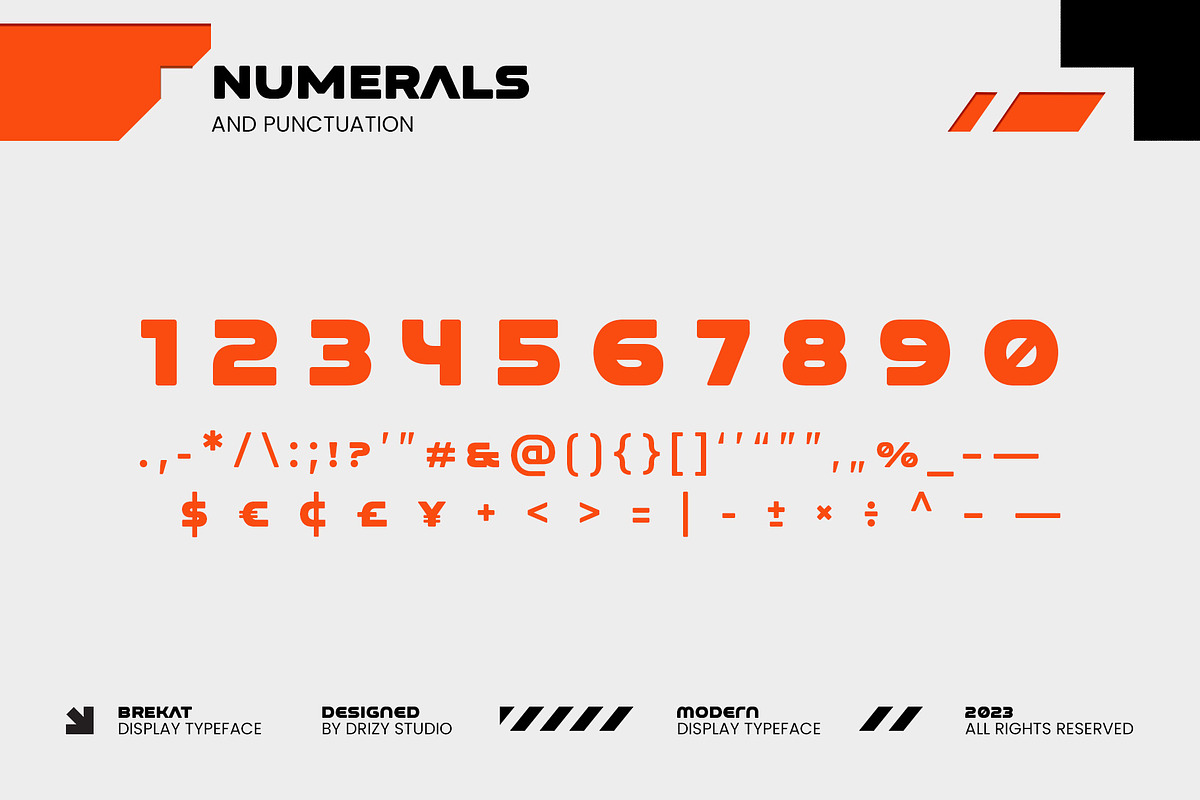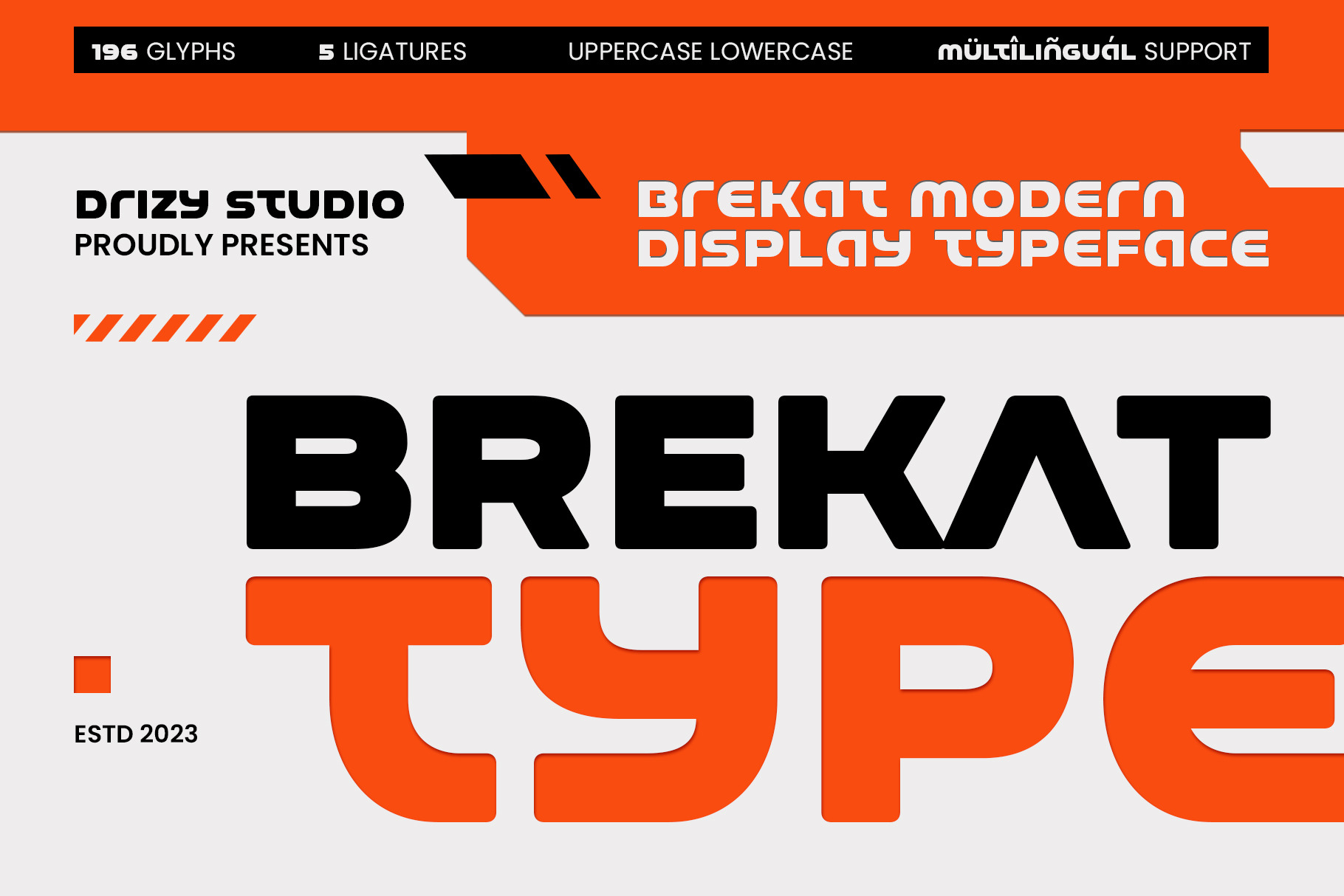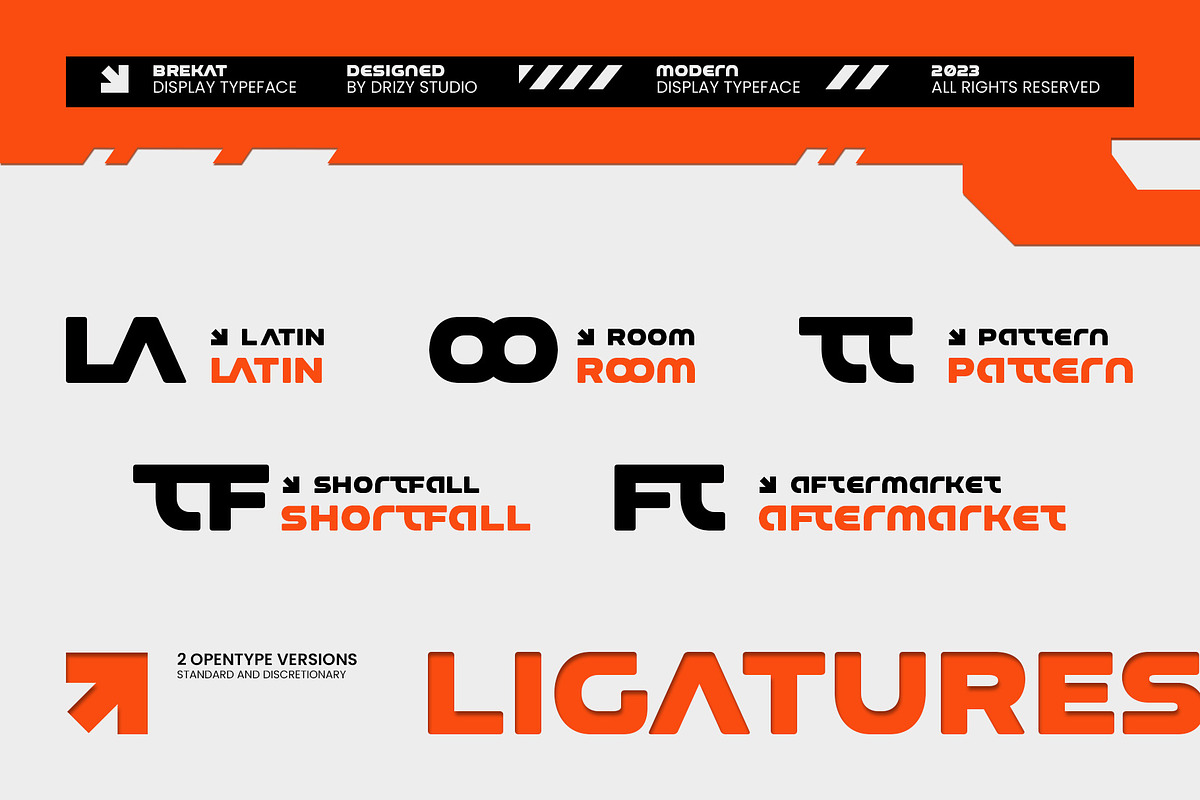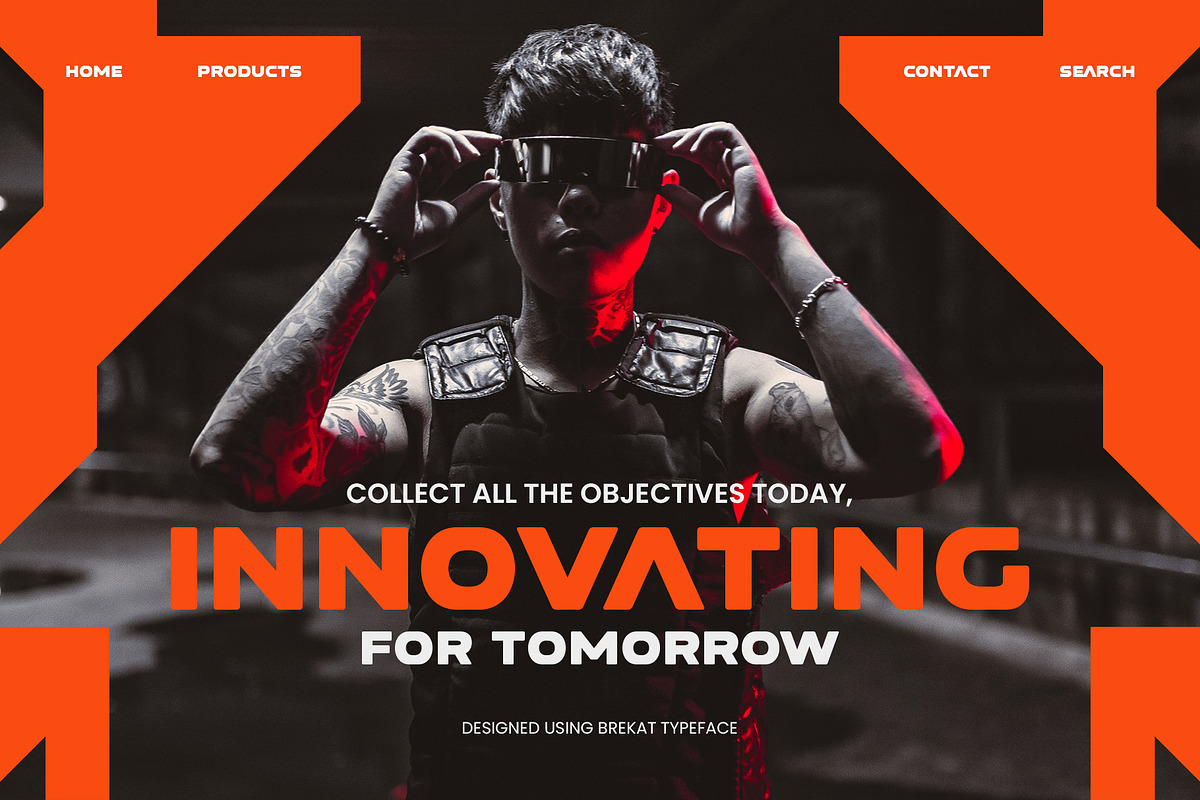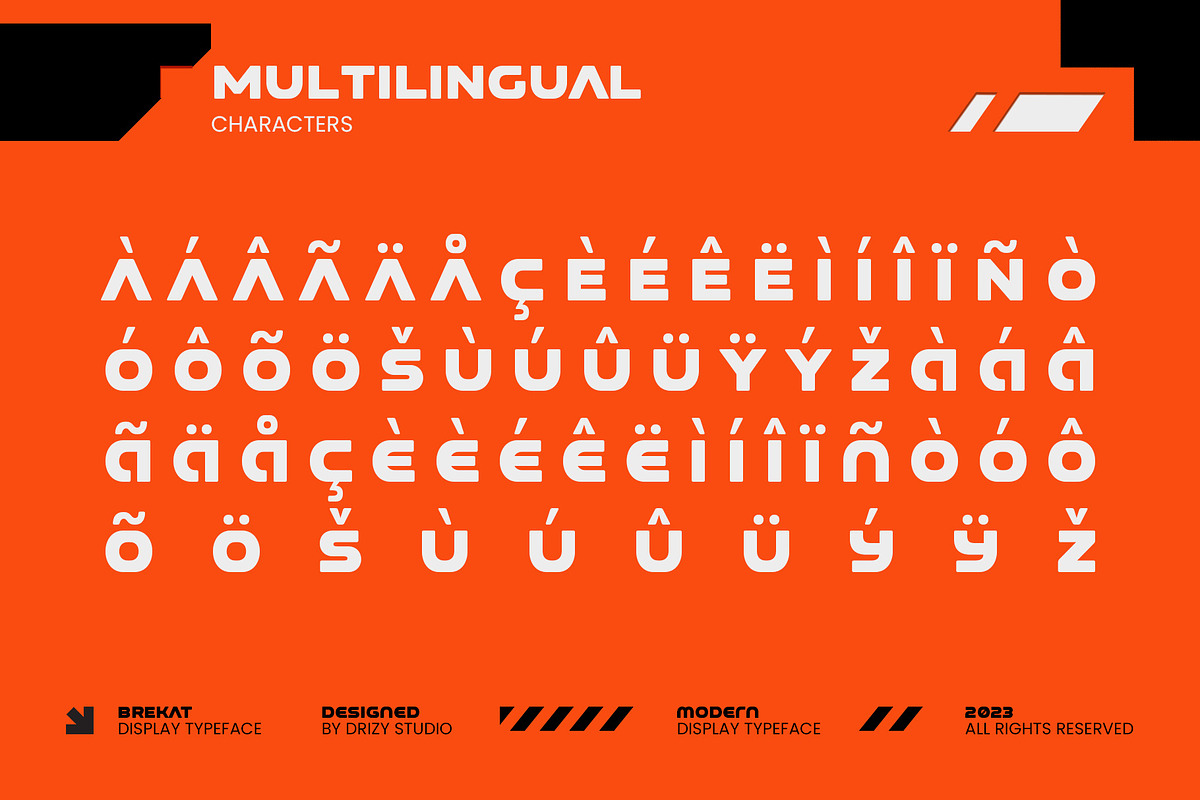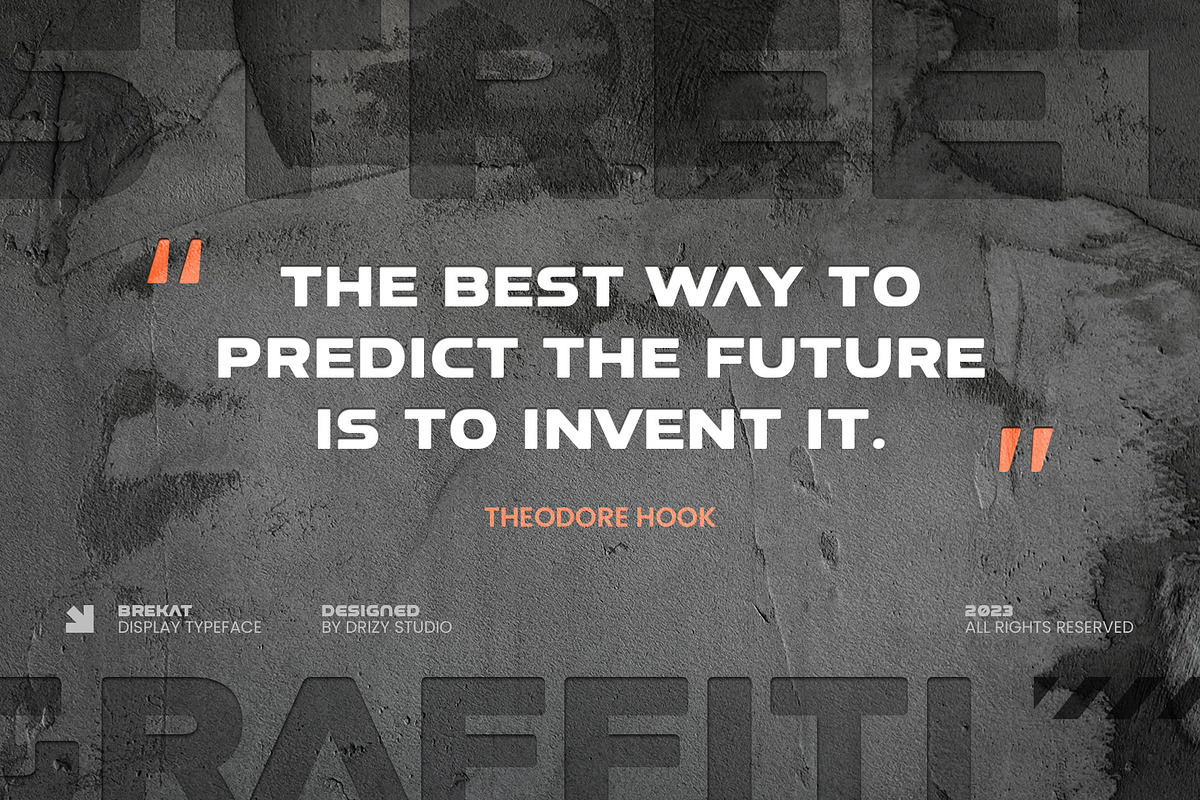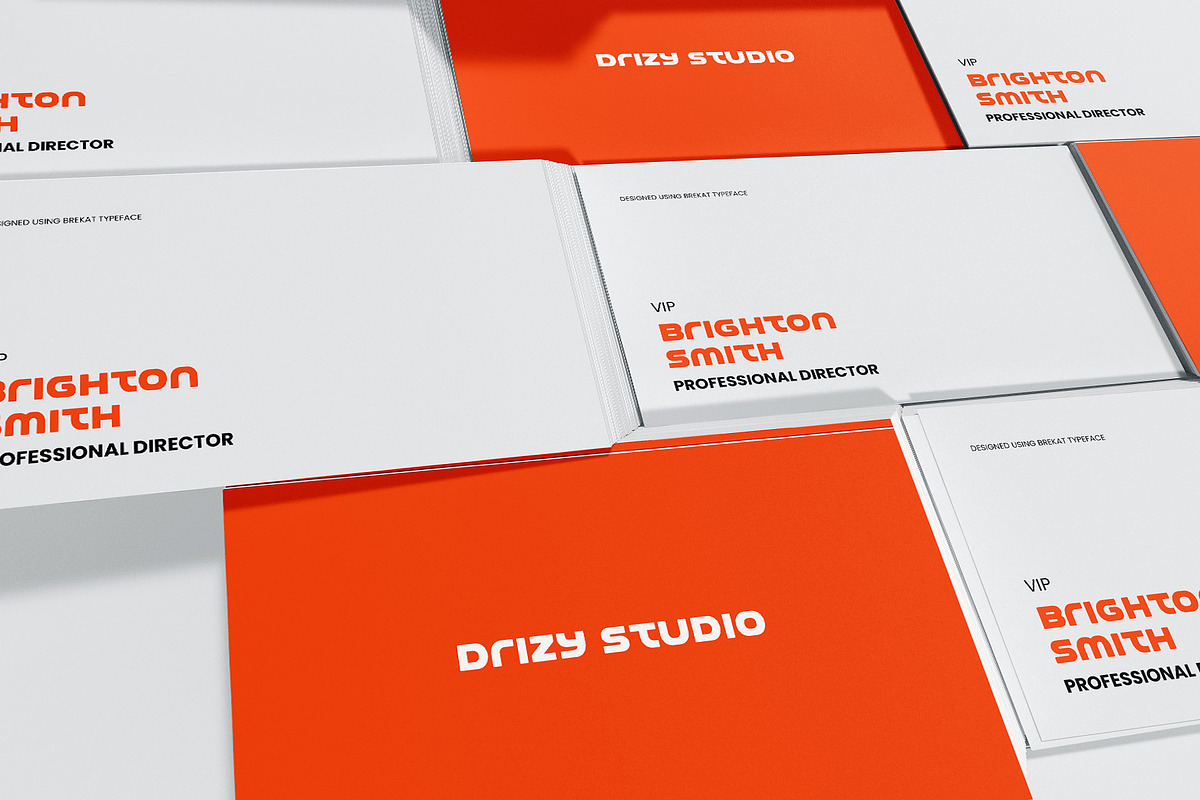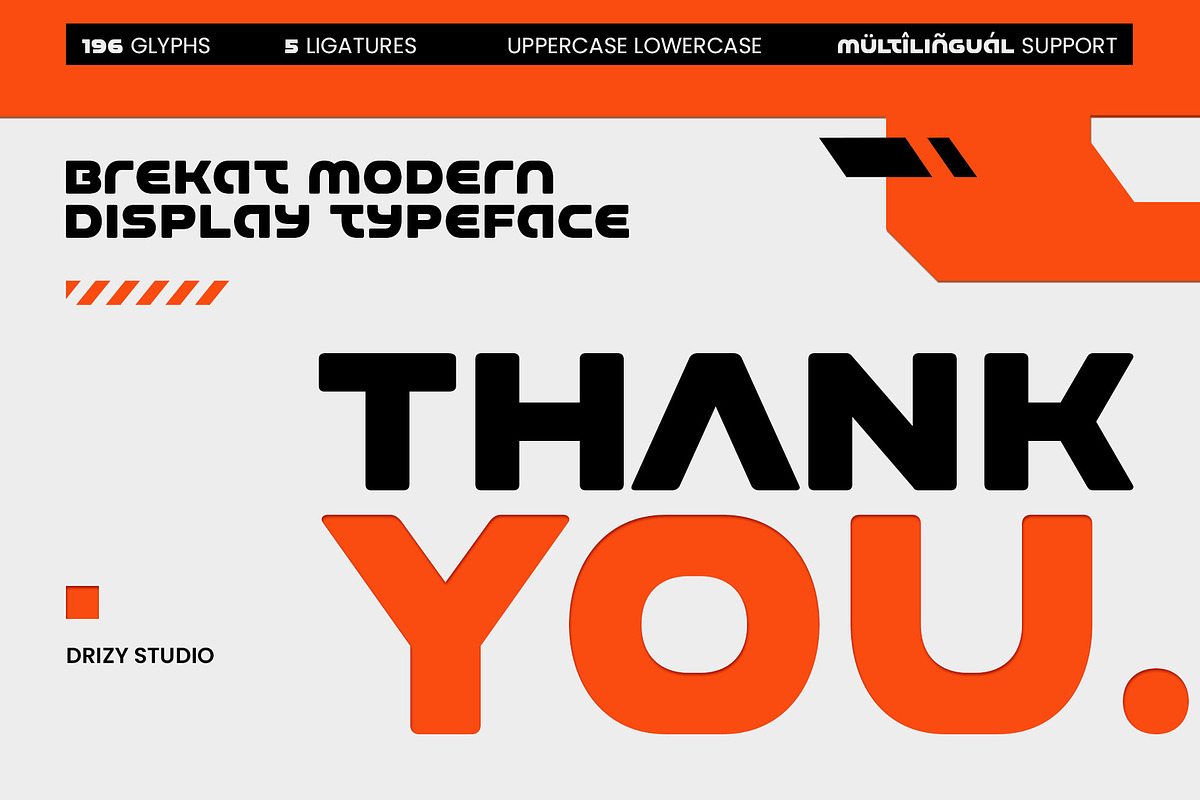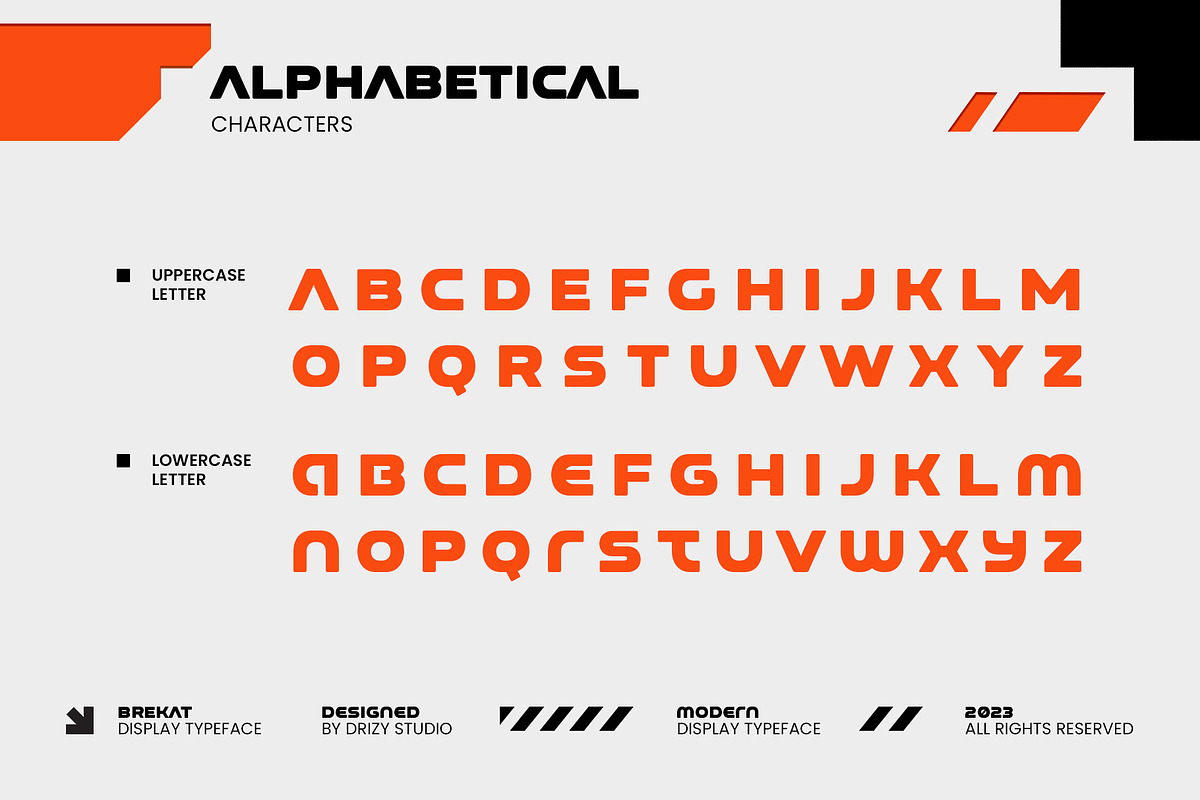
Brekat - Modern Display Typeface
Introducing, Brekat is a modern and stylish display typeface that is meticulously crafted to add a touch of sophistication and elegance to your graphic designs. With its clean lines, sleek curves, and distinctive characters, Brekat is the perfect choice for a wide range of design applications.
Brekat features: Uppercase & Lowercase Punctuation & Numbers Multilingual Support Ligatures
Elevate and explore the design possibilities with this modern font!